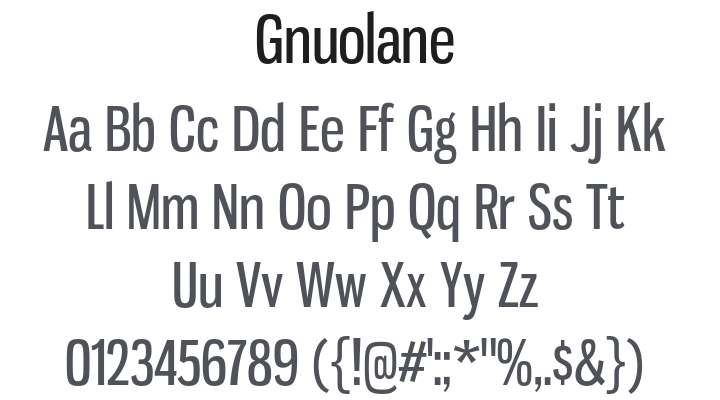
Gnuolane Font
About Gnuolane
Gnuolane is a compact, superelliptical sans serif that balances modern clarity with approachable warmth. Its smooth curves, angled ascenders, and efficient proportions create a friendly, contemporary rhythm suited to branding, packaging, and editorial design. The family includes five weights with italics and two textured “Grind” styles for added grit. Light weights stay open and refined; bolds deliver compact strength without crowding. With broad language support and space-saving geometry, Gnuolane offers clean versatility and subtle personality in equal measure.